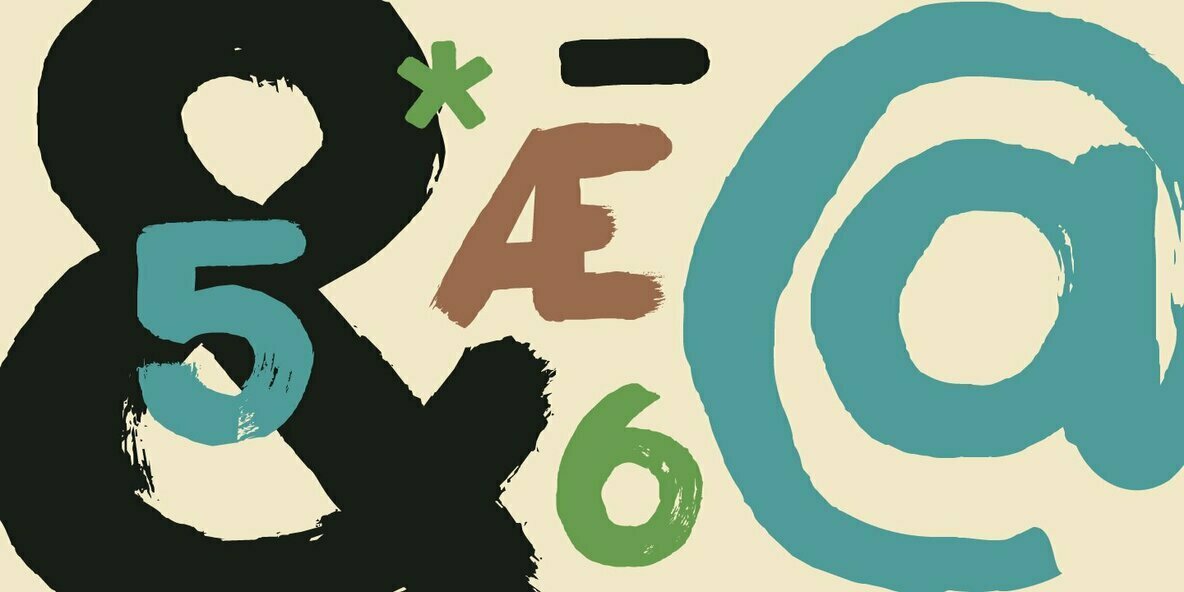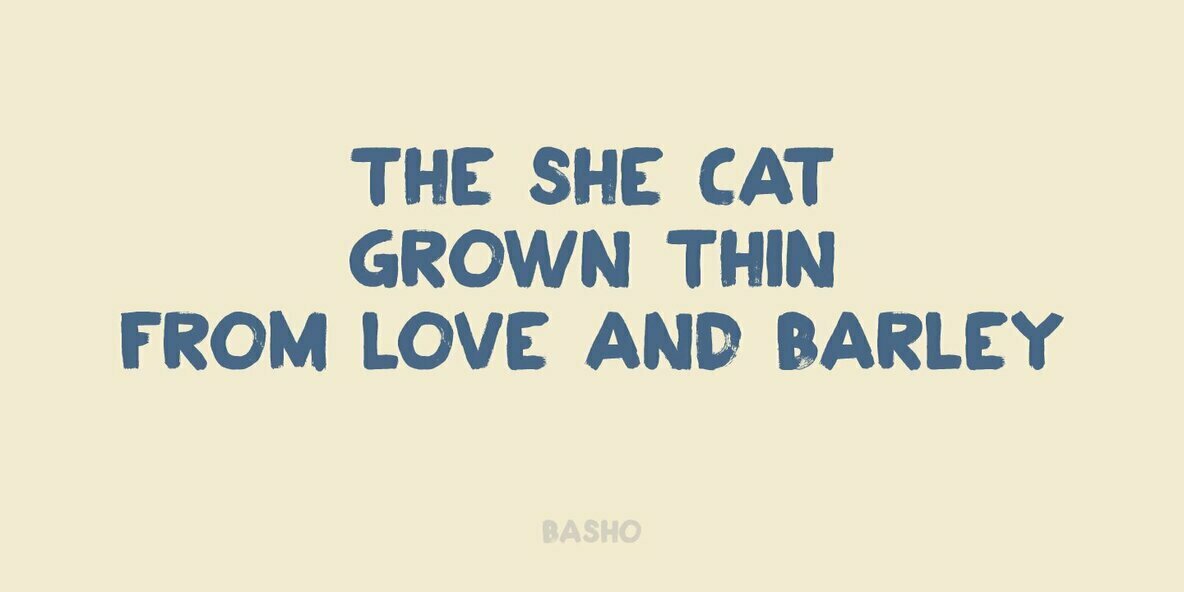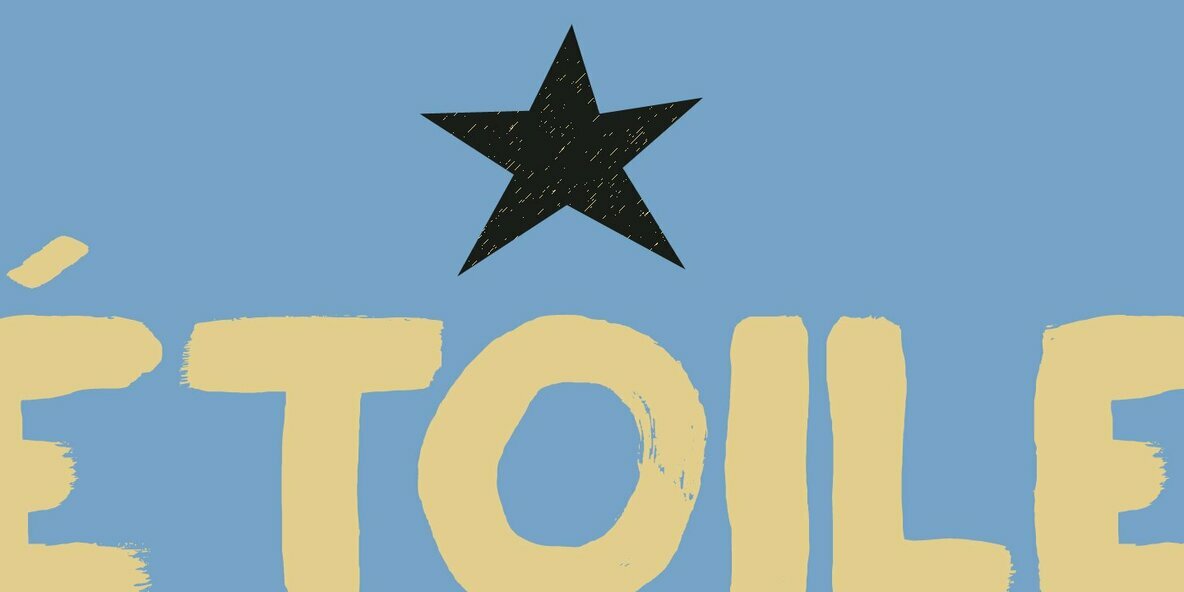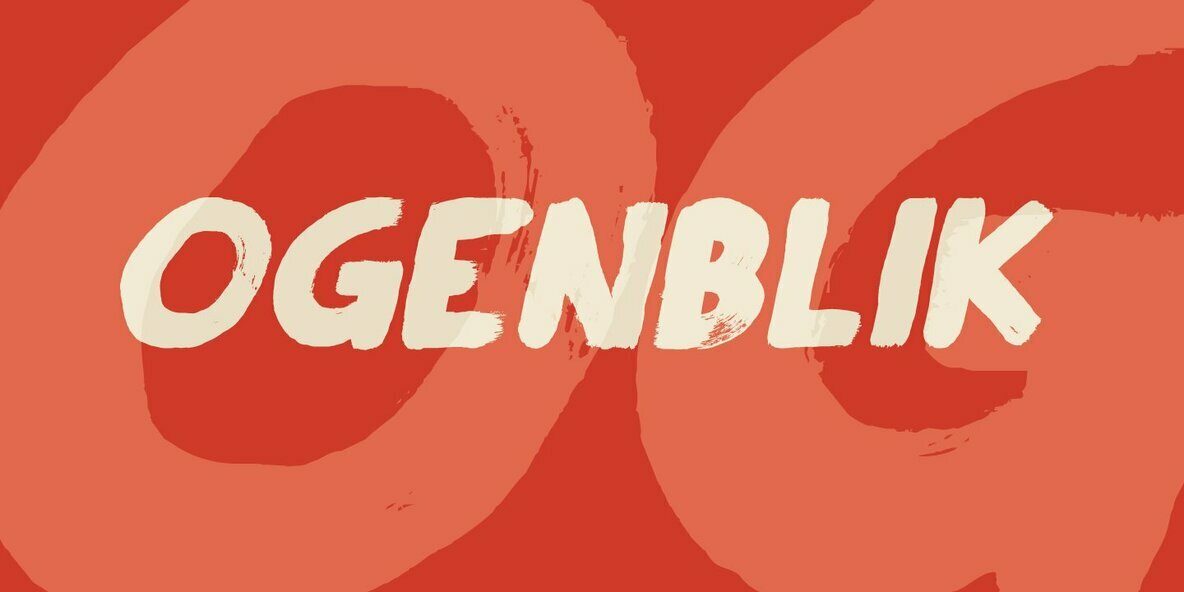
Plakkaat Font
Plakkaat
Plakkaat Italic
Plakkaat is a fat brushed font, made with wide brushes and paint. Since it is a very easy to read font (and not to be missed), it is ideal for advertising campaigns, or demonstration signs..
This 2019 version comes with improved kerning, some new and some adjusted glyphs.